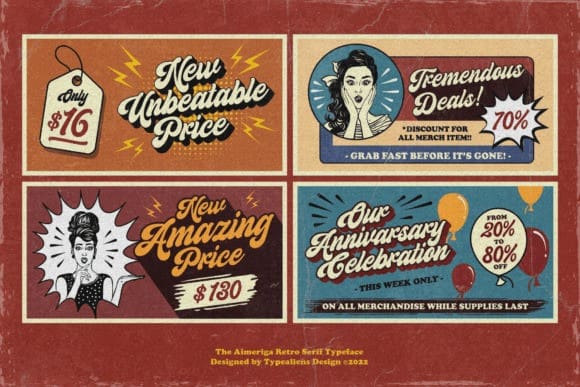
Aimeriga Retro Font
Aimeriga Retro Font is a vintage script font with fat features on its body, a font that is suitable for branding food, fashion or any brand that requires a vintage style. In addition to vintage, this font is also relaxed and casual and easy to process in layouts according to design needs.